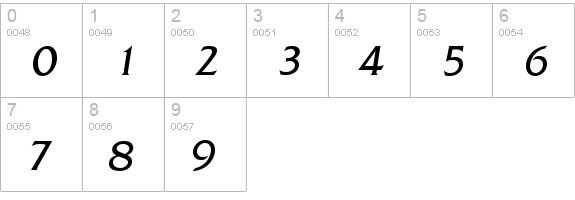
Quadrat-LightIta font is a stunning and sophisticated typeface that exudes elegance and modernity. Its clean lines and sleek curves make it perfect for a wide range of design projects, from fashion magazines to luxury branding. This font offers a unique combination of simplicity and versatility, making it suitable for both headline and body text. Its light weight adds a touch of delicacy to any design while maintaining excellent readability. Whether you're designing a website, creating a professional presentation, or crafting an eye-catching logo, Quadrat-LightIta font is sure to elevate your project to the next level. One of the best features of Quadrat-LightIta font is that it is completely free. Yes, you read that right – this extraordinary font can be downloaded for free at FontsMarket.com. This means that you can enjoy all of its captivating qualities without having to spend a dime. It's a wonderful opportunity to enhance your designs without breaking the bank. So why wait? Visit FontsMarket.com today and discover the beauty and versatility of Quadrat-LightIta font. With its timeless elegance and free availability, it's a must-have for every designer's toolkit. Download it now and let your creativity shine!